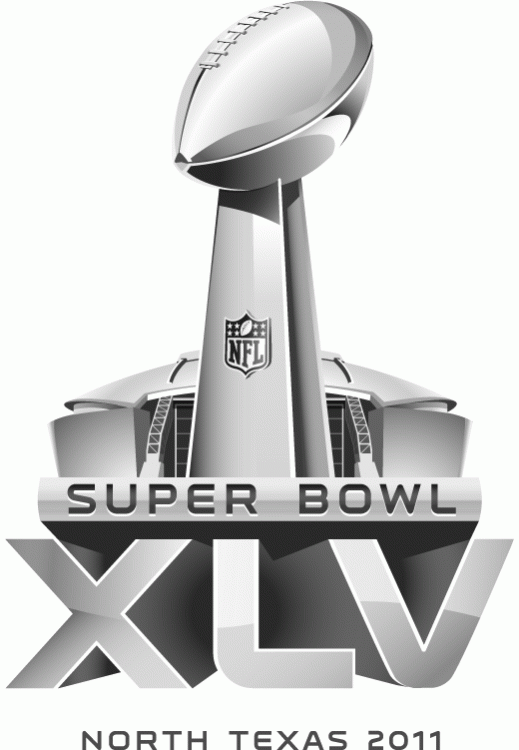
Free Super Bowl Fonts. Hagane is both super bowl & xlv #4. Super bowl 2021 svg free.
The curls and colors of the design were inspired by grillwork found around new orleans. Great font work, but i'm only going to use it once so i'm trying to find a way around that. Let’s check together some of the free fonts for the nfl teams!